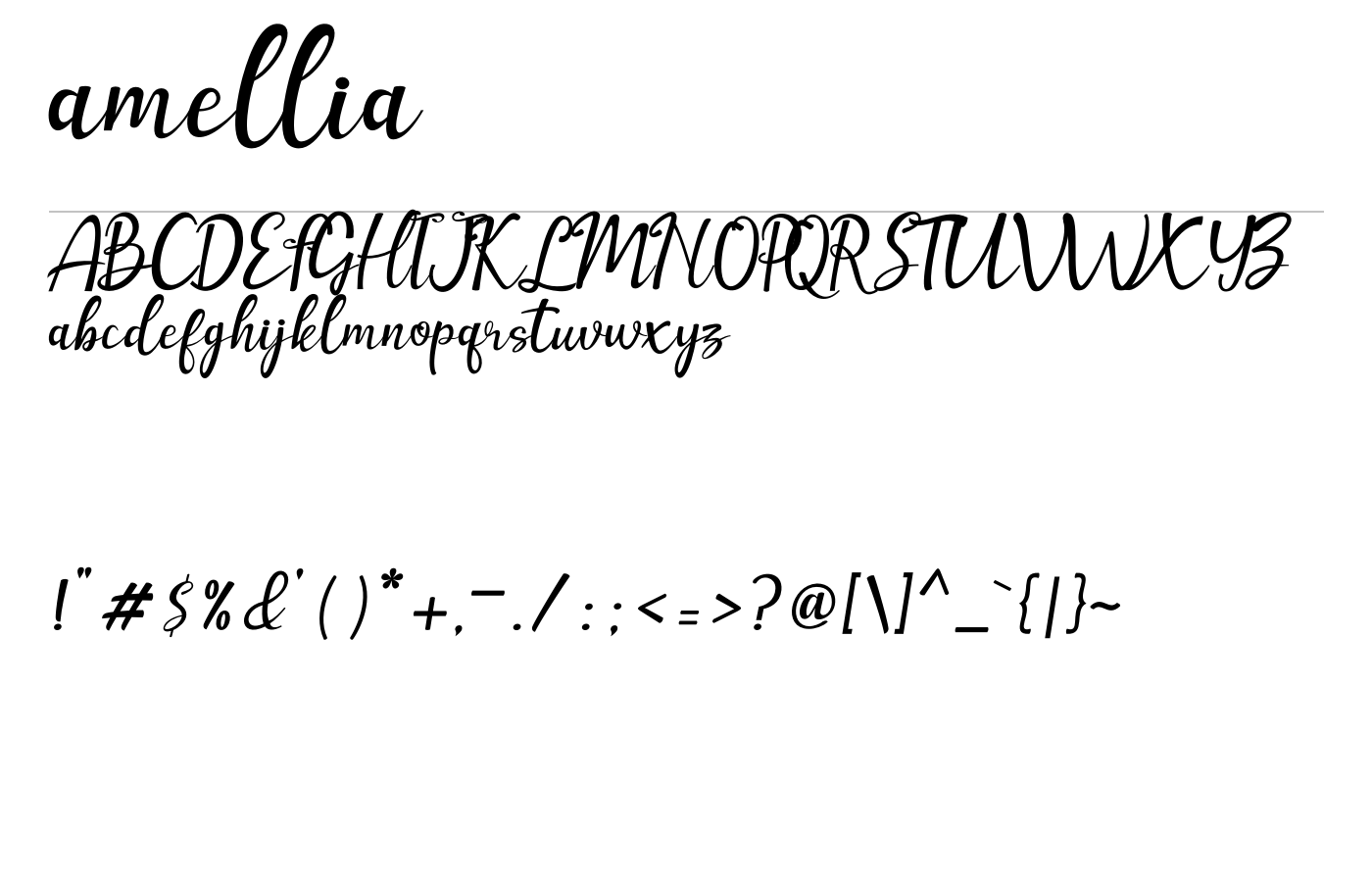
Amellia is a graceful and elegant script font characterized by its smooth, flowing strokes and moderate contrast between thick and thin lines. Its narrow, slightly condensed letterforms with a handwritten feel make it perfect for adding a personal, stylish touch to branding, invitations, and editorial design. This font works well in contexts where a sophisticated yet approachable aesthetic is desired, especially in fashion, luxury, and creative projects.
amellia Font
About amellia Font